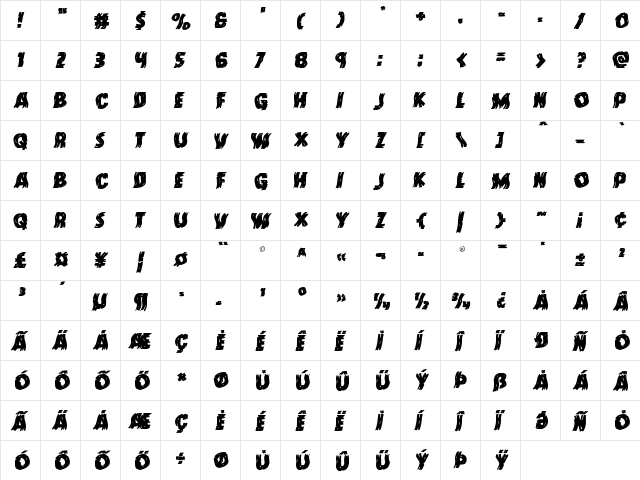
Dokter Monstro Warped Italic Italic
Design Context for Dokter Monstro Warped Italic Typeface
Dokter Monstro Warped Italic is a composed and adaptable typeface that performs quietly and consistently across a wide range of design contexts. Its italic angle brings a sense of urgency and motion to the letterforms.
Pro Tip: Use Dokter Monstro Warped Italic for emphasis, pull quotes, and subheadings where its slanted energy can add rhythm to the layout.